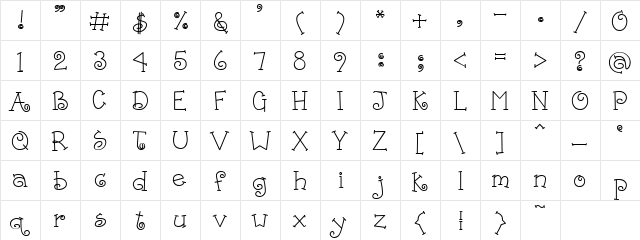
DJ Squirrelly Regular
Design Context for DJ Squirrelly Typeface
DJ Squirrelly is a composed and adaptable typeface that performs quietly and consistently across a wide range of design contexts.
Pro Tip: Use DJ Squirrelly in both headline and body roles to test its range before committing to a single application.